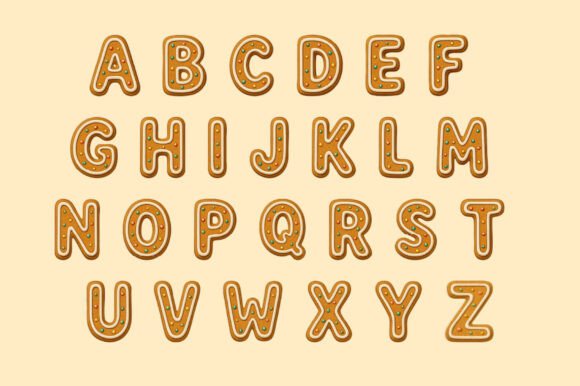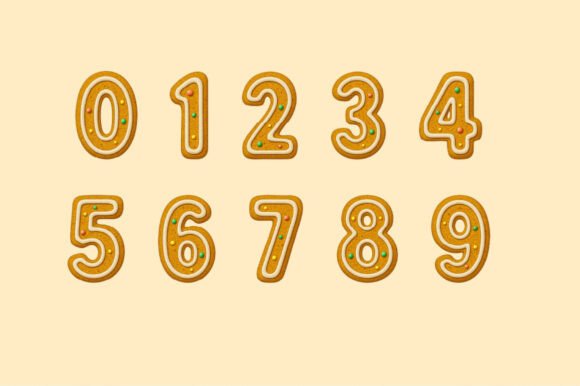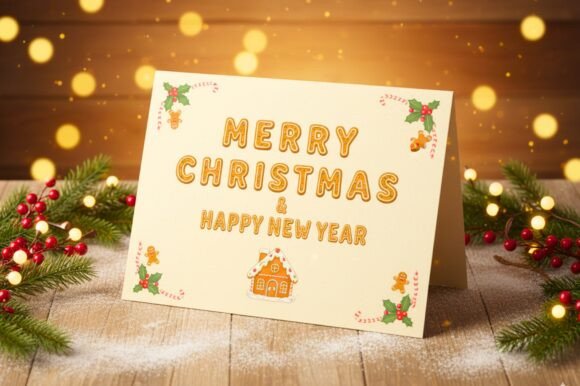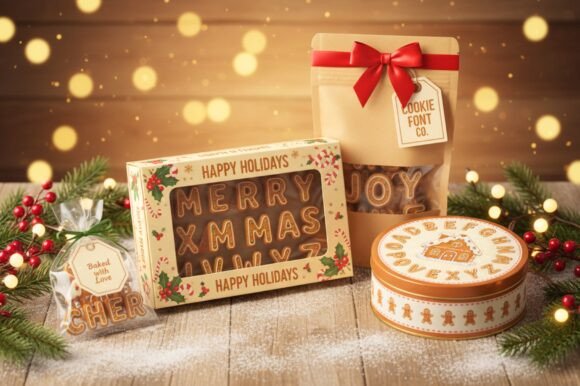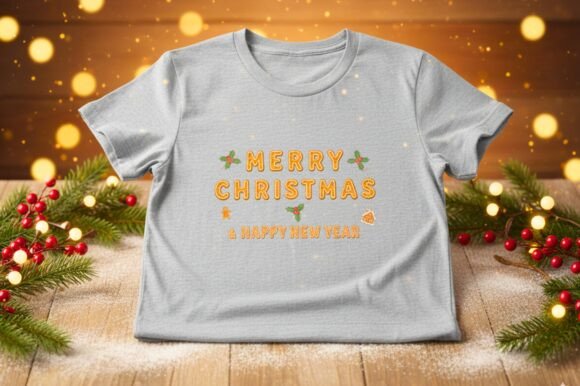
Deck the Halls with 3D Gingerbread Font
There’s something magical about the holiday season that sparks our creativity and inspires us to make our designs merry and bright. Whether you’re crafting festive cards, baking treats, or brainstorming marketing ideas, you’re probably on the lookout for the perfect font to add a dash of holiday cheer to your projects. Enter the 3D Gingerbread Font – a playful, festive, and utterly charming decorative typeface that looks just like real gingerbread cookies, complete with colorful sprinkles and sweet icing details.
This delightful font is perfect for adding a touch of whimsy to your designs, from Christmas cards and New Year invitations to bakery logos, festive posters, product packaging, social media graphics, and DIY crafts. As a designer, you’ll love the flexibility and versatility of 3D Gingerbread Font, which is sure to bring a smile to your clients’ faces and make your designs stand out from the crowd.
- Unique Characteristics: This font features a unique 3D gingerbread-inspired design, complete with intricate details and textures, adding a whimsical touch to any project.
3D Ginger Bread Font Review
As a designer, I was excited to dive into the 3D Ginger Bread Font, but my experience was a mixed bag. Here’s what worked well and what didn’t quite hit the mark.
- The unique, 3D-like texture of the font adds a playful touch to any design project.
- The bold, chunky lines of the font make it perfect for use in headings and titles.
- The font’s irregularities and imperfections give it a handmade, whimsical feel that’s hard to find in more traditional fonts.
- The font’s 3D texture can sometimes be distracting or overpowering, especially when used in large quantities.
- The font’s irregularities can make it difficult to read, particularly in smaller sizes or for users with visual impairments.
- The font’s limited character set and lack of ligatures can make it less suitable for complex or technical text.
Overall, I think the 3D Ginger Bread Font is a fun and creative option for designers looking to add some personality to their projects. However, it’s not a one-size-fits-all solution and may not be suitable for every design context. With some careful consideration and balancing of its strengths and weaknesses, this font can be a great addition to any design toolkit.
For best results, use the 3D Gingerbread font in designs related to food, baking, or winter themes.